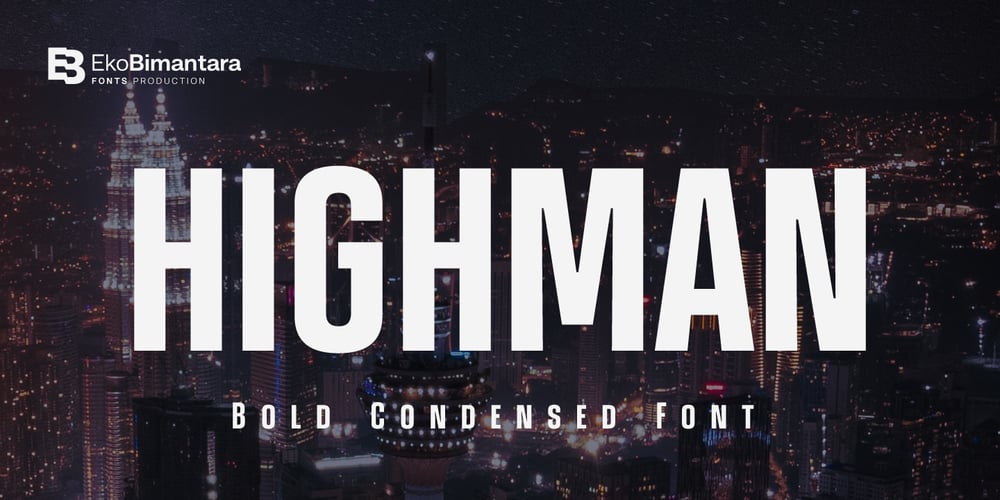
Highman Font Family was designed by Eko Bimantara and published by Eko Bimantara. Highman contains 1 styles and family package options. Highman is a modern condensed bold font. Its contain all caps letter yet its have a different height between the uppercase and lowercase. Its fit for brand, titling, stacking or grid layout and all kind of display usage.